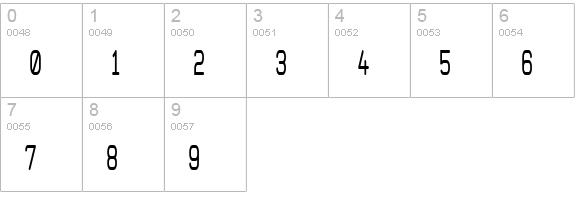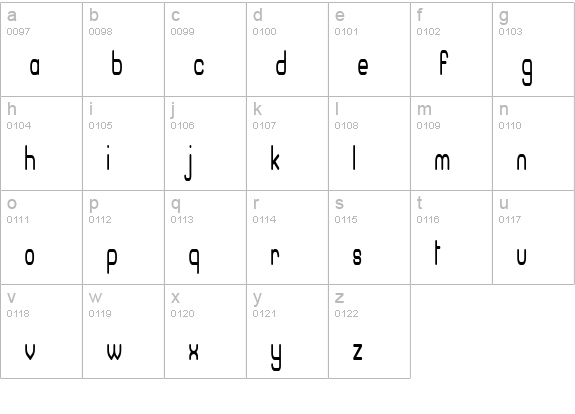
Brave New Era (narrow) G98 Font Details
Brave New Era (narrow) G98 is a distinctive, condensed-width variant in the Brave typeface family \xE2\x80\x94 well suited to design and typography projects.
Brave New Era (narrow) G98 font is a modern and elegant typeface that exudes confidence and sophistication. With its sleek and slender design, this font is perfect for adding a touch of style to any project. The crisp lines and sharp angles of Brave New Era (narrow) G98 font make it an ideal choice for creating a sleek and contemporary look. Whether you're designing a website, crafting a logo, or working on a print project, this font will elevate your design to the next level. The best part? Brave New Era (narrow) G98 font is available for free download at FontsMarket.com. This means that you can easily access this stylish font and use it in your projects without any cost. Don't miss out on the opportunity to enhance your designs with the modern and sophisticated flair of Brave New Era (narrow) G98 font. Download it today and take your projects to new heights!